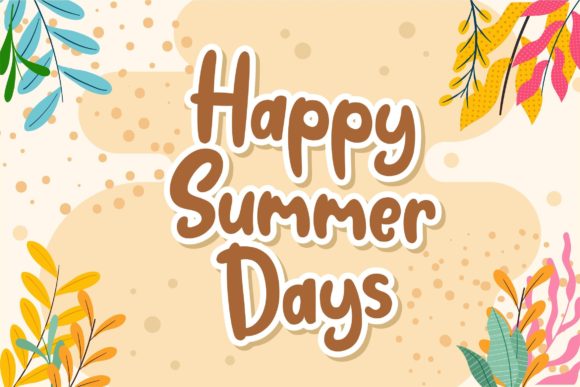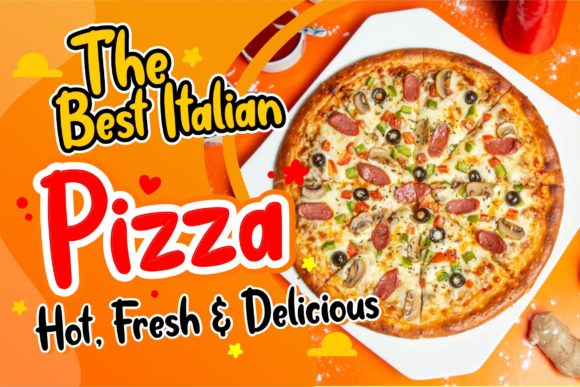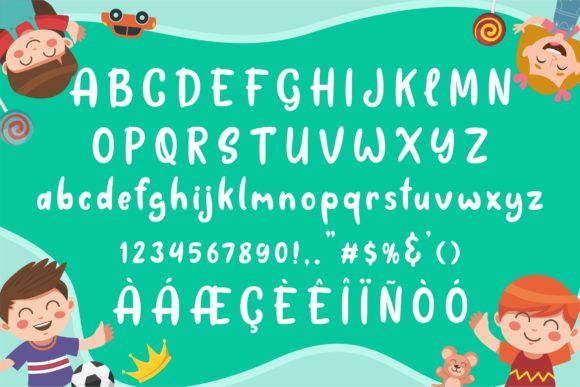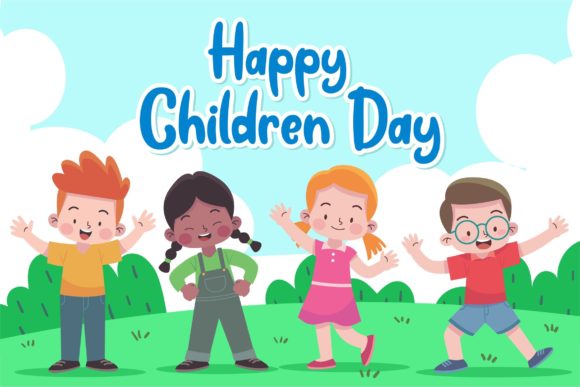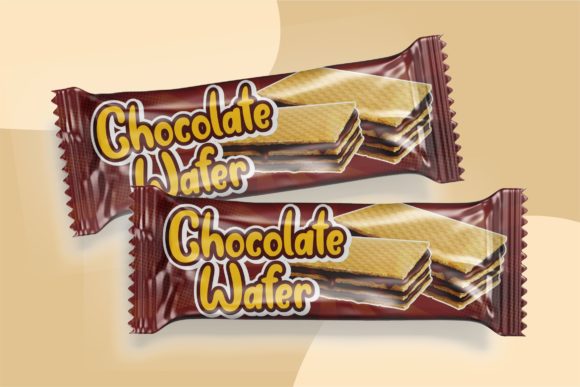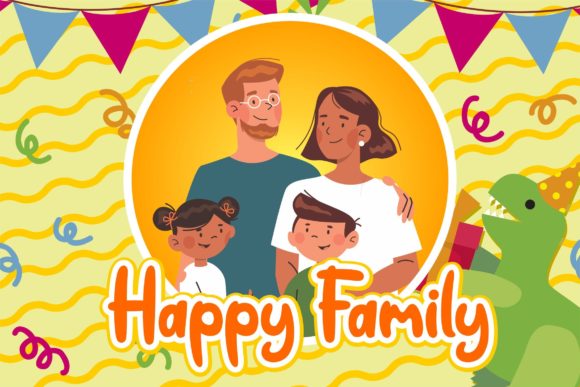
Introducing Degan Font: The Perfect Choice for Fun and Creative Projects
Are you looking for a font that embodies playfulness and authenticity? Look no further than Degan Font! This cute and colorful display font is perfect for any children activity or school project that requires a touch of fun and whimsy. In this article, we’ll take a closer look at Degan Font, its features, and how you can use it to add a pop of personality to your designs.
What is Degan Font?
Degan Font is a modern display font that is designed to bring a sense of playfulness and joy to your designs. Its colorful and cute appearance makes it perfect for use in children’s books, school projects, activity sheets, and any other creative project that requires a fun and youthful touch.
Key Features of Degan Font
- Cute and Colorful Design: Degan Font features a unique and colorful design that is sure to capture the attention of your audience.
- Playful and Authentic: This font embodies playfulness and authenticity, making it perfect for projects that require a fun and youthful touch.
- High-Quality Design: Degan Font is designed with high-quality graphics, ensuring that it looks great in any size or resolution.
- Easily Readable: Despite its playful design, Degan Font is easily readable, making it perfect for use in body text or headings.
Use Cases for Degan Font
Degan Font is a versatile font that can be used in a variety of creative projects. Here are some use cases where Degan Font shines:
- Children’s Books and Activity Sheets: Degan Font is perfect for use in children’s books, activity sheets, and coloring books.
- School Projects: This font is great for use in school projects, such as posters, presentations, and reports.
- Crafting and DIY Projects: Degan Font can be used in crafting and DIY projects, such as making cards, gift tags, and other handmade items.
- Digital Designs: This font can be used in digital designs, such as social media graphics, blog posts, and website headers.
Tips for Using Degan Font
Here are some tips for using Degan Font in your designs:
- Use it in Headings and Titles: Degan Font is perfect for use in headings and titles, where you want to add a pop of personality to your design.
- Pair it with Other Fonts: You can pair Degan Font with other fonts to create a unique and interesting design.
- Experiment with Colors: Degan Font comes in a range of colors, so don’t be afraid to experiment and find the perfect color for your design.
In conclusion, Degan Font is a cute and colorful display font that is perfect for any children activity or school project. Its playful and authentic design makes it a great choice for adding a touch of fun and whimsy to your designs. With its high-quality graphics, easily readable design, and versatility, Degan Font is a great addition to any designer’s toolkit.